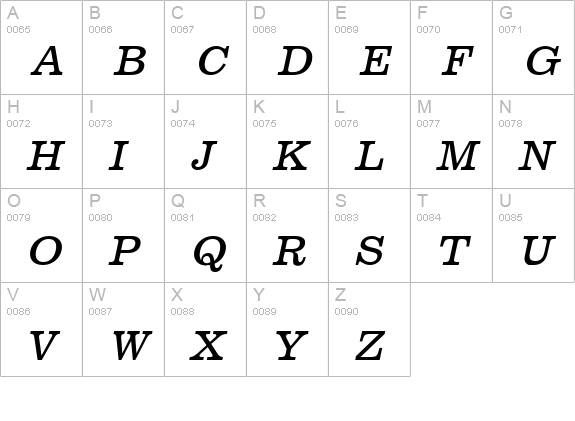
Broadcast Italic is a distinctive, italic variant in the Broadcast typeface family \xE2\x80\x94 well suited to design and typography projects.
Introducing Broadcast Italic font, a sleek and modern typeface that exudes sophistication and elegance. With its stylish slanted design, this font is perfect for adding a touch of flair to any project. Whether you're creating a logo, designing a website, or crafting promotional materials, Broadcast Italic is sure to make a lasting impression. The best part? Broadcast Italic font is available for free download at FontsMarket.com. Yes, you read that right - you can elevate your designs with this stunning font without spending a dime. Don't miss out on this opportunity to access a premium font for absolutely free. Download Broadcast Italic font today and take your designs to the next level!